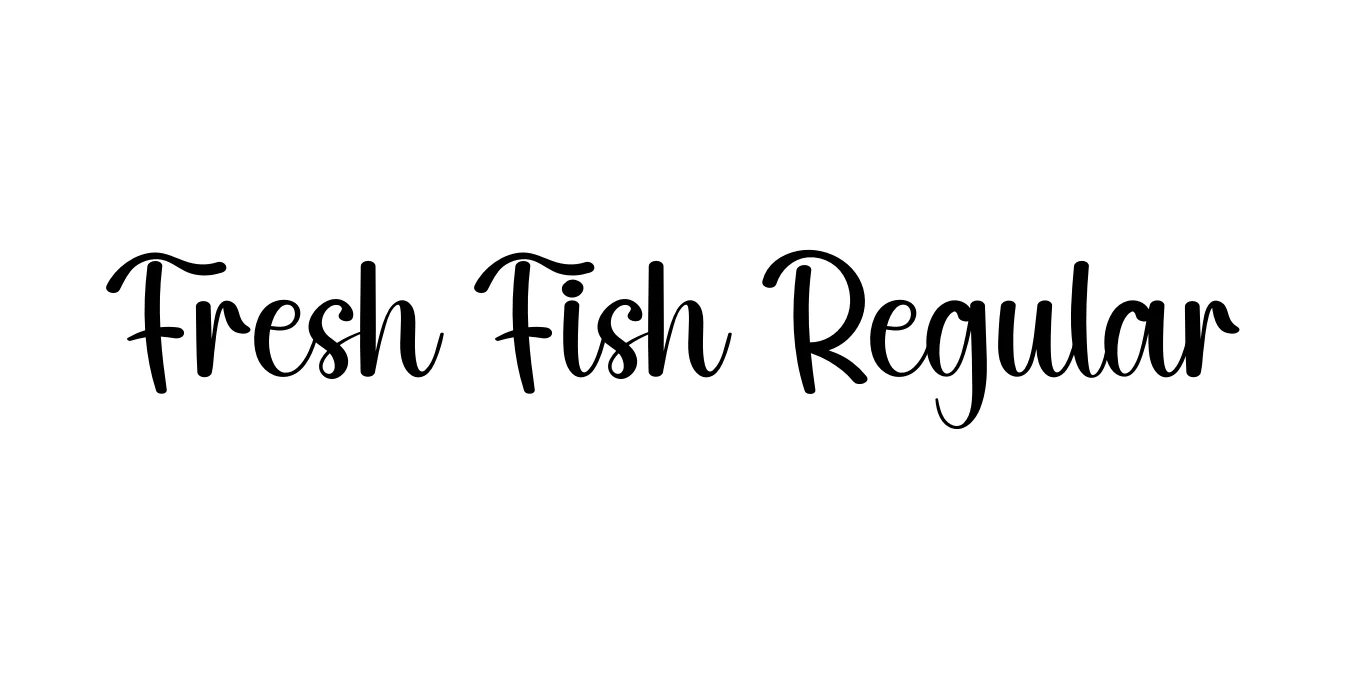
Fresh Fish Regular
Designed by Pavel Korzhenko (Vintage Voyage Design Co.)
| Category | Script / Brush |
Fresh Fish Regular is a vibrant, hand-drawn font family designed by Pavel Korzhenko. It captures a unique blend of organic texture and playful spontaneity, making it a standout choice for projects that require a touch of human warmth. The letterforms are characterized by their smooth yet slightly irregular edges, reflecting a genuine brush-painted aesthetic that feels both modern and nostalgic.
This font is highly versatile, often used in branding, packaging, and advertising. Since its release, it has gained popularity among designers for its ability to provide a casual, approachable feel without sacrificing professional readability. Its rhythmic flow and distinct personality make it ideal for display purposes where a friendly, handcrafted vibe is essential for the visual narrative.
Fresh Fish Regular Best Uses
Perfect for creating approachable and memorable brand identities for lifestyle products.
Adds an organic, artisanal feel to food, beverage, and craft labels.
Great for eye-catching quotes, engaging story headers, and blog graphics.
Ideal for trendy t-shirt designs, tote bags, and lifestyle merchandise.